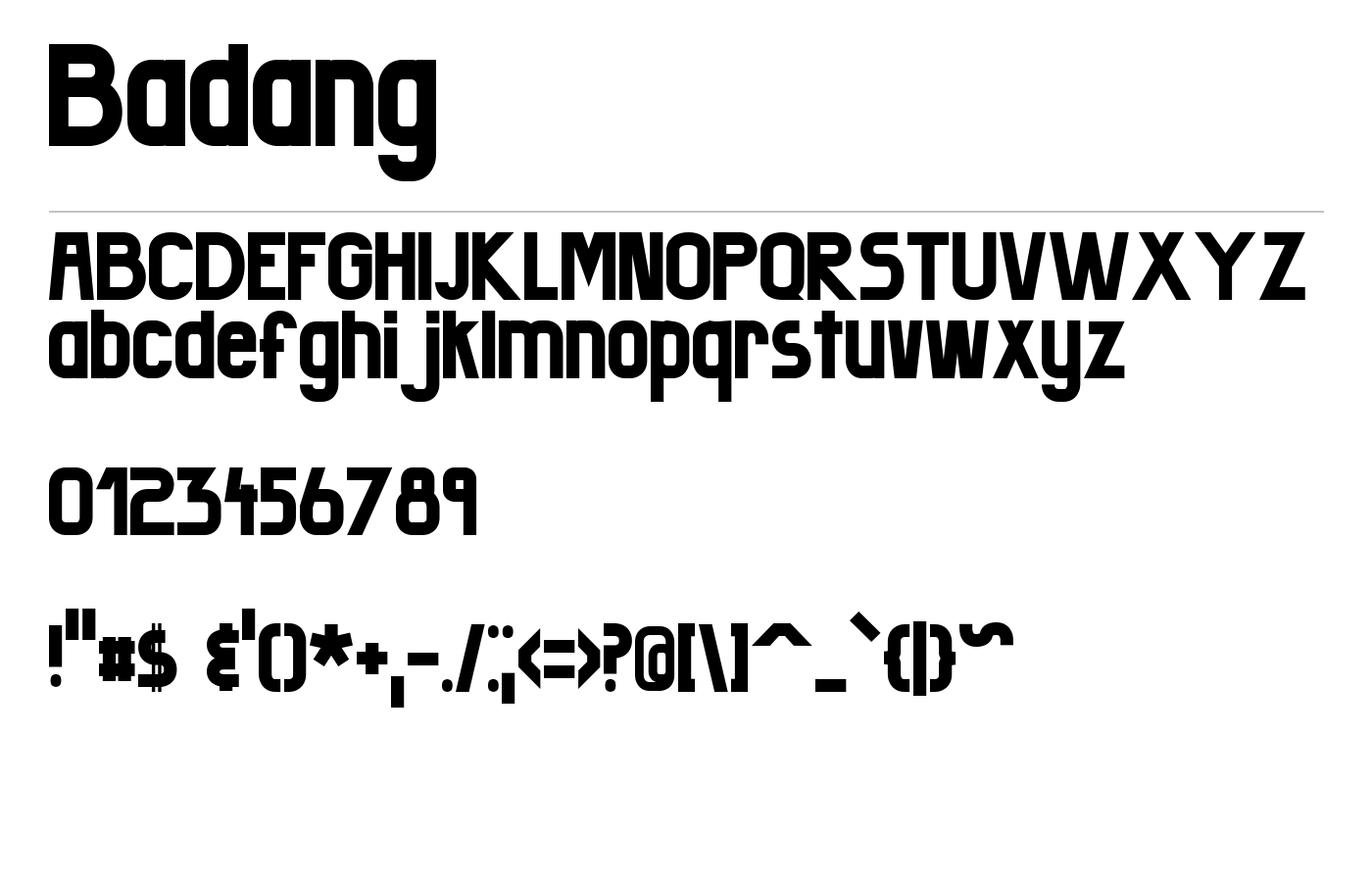
Badang is a bold, condensed sans serif font with a strong, modern feel. Its uniform stroke weight and squared shapes give it a clean, geometric look that is highly legible and impactful, making it great for headlines, logos, and branding that require a confident, contemporary edge. This font works best where clarity and a sturdy presence are needed, conveying strength and straightforwardness.
Badang Font
About Badang Font
| Font family | Badang Font |
| Designer | cenz qobbal |